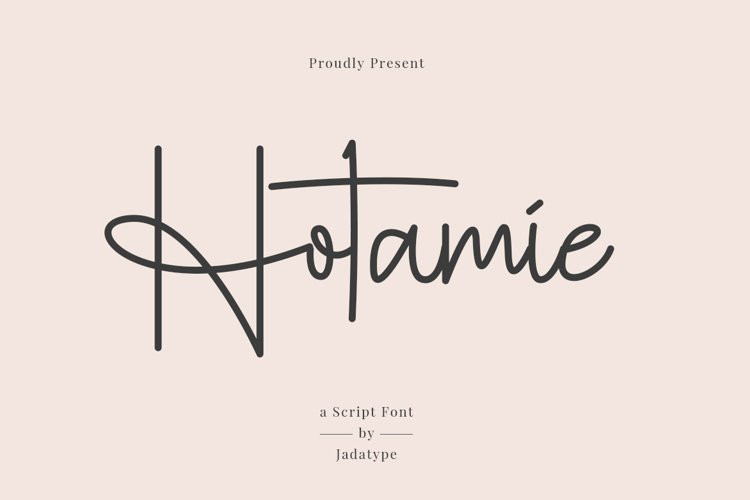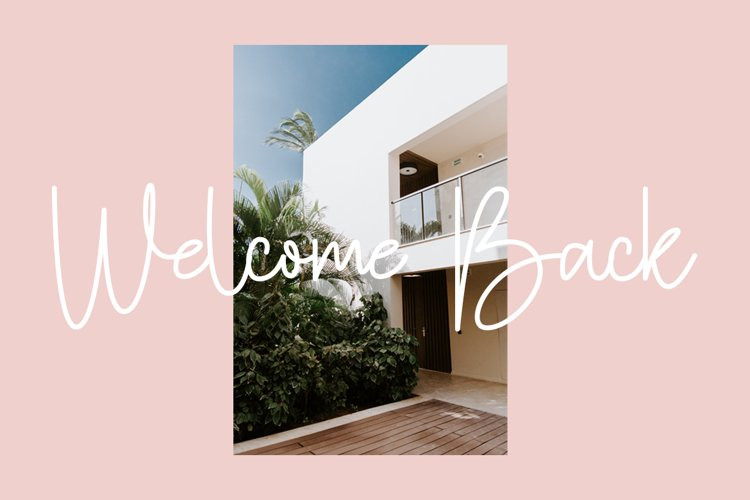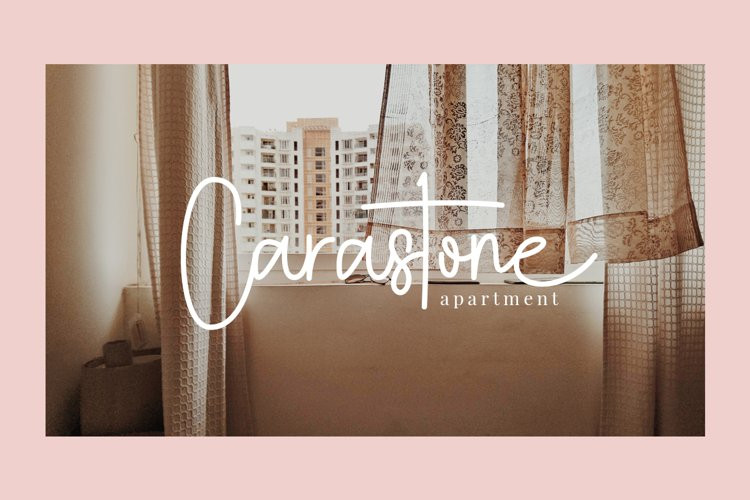
Hotamie Font
HotamieHotamie is a script font with monoline lines. can be used as your branding logo, writing for your product design, business cards, weddings, book titles, social media designs, and others. contains standard English letters and some that support multilingual. can be installed in applications such as adobe family or affinity.
Hotamie